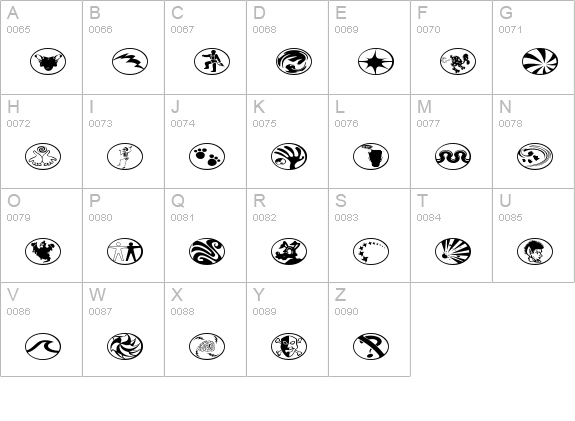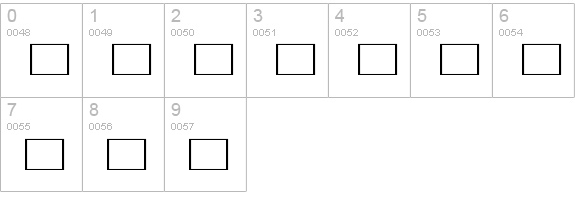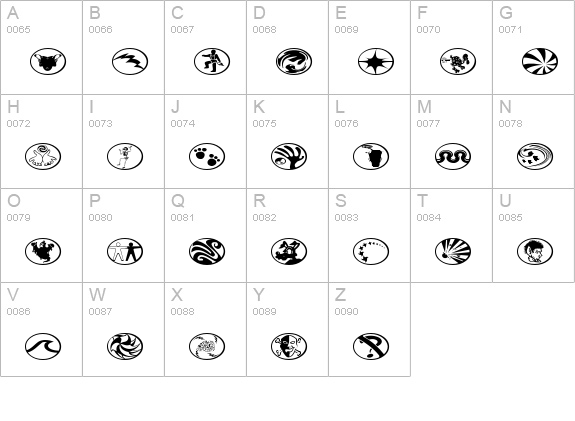
Radbats 2 Font Details
Introducing Radbats 2, a captivating and versatile font that is sure to add a touch of whimsy and creativity to any project. This font is the perfect combination of boldness and playfulness, making it an ideal choice for various design purposes. Radbats 2 features a unique collection of quirky and charming icons, including adorable animals, expressive faces, and intricate patterns. These eye-catching elements can effortlessly enhance your designs, whether you're working on a logo, poster, website, or any other creative endeavor. One of the most remarkable aspects of Radbats 2 is that it is available for free! Yes, you read that right - this stunning font can be downloaded at no cost from FontsMarket.com. This means that you can easily access and use this font without breaking the bank. Whether you're a professional designer or a creative hobbyist, Radbats 2 offers endless possibilities for your projects. Its versatility allows you to mix and match the various icons, creating unique compositions that truly stand out. Don't miss out on the chance to add a touch of whimsy and personality to your designs. Download Radbats 2 for free at FontsMarket.com and let your creativity soar to new heights.